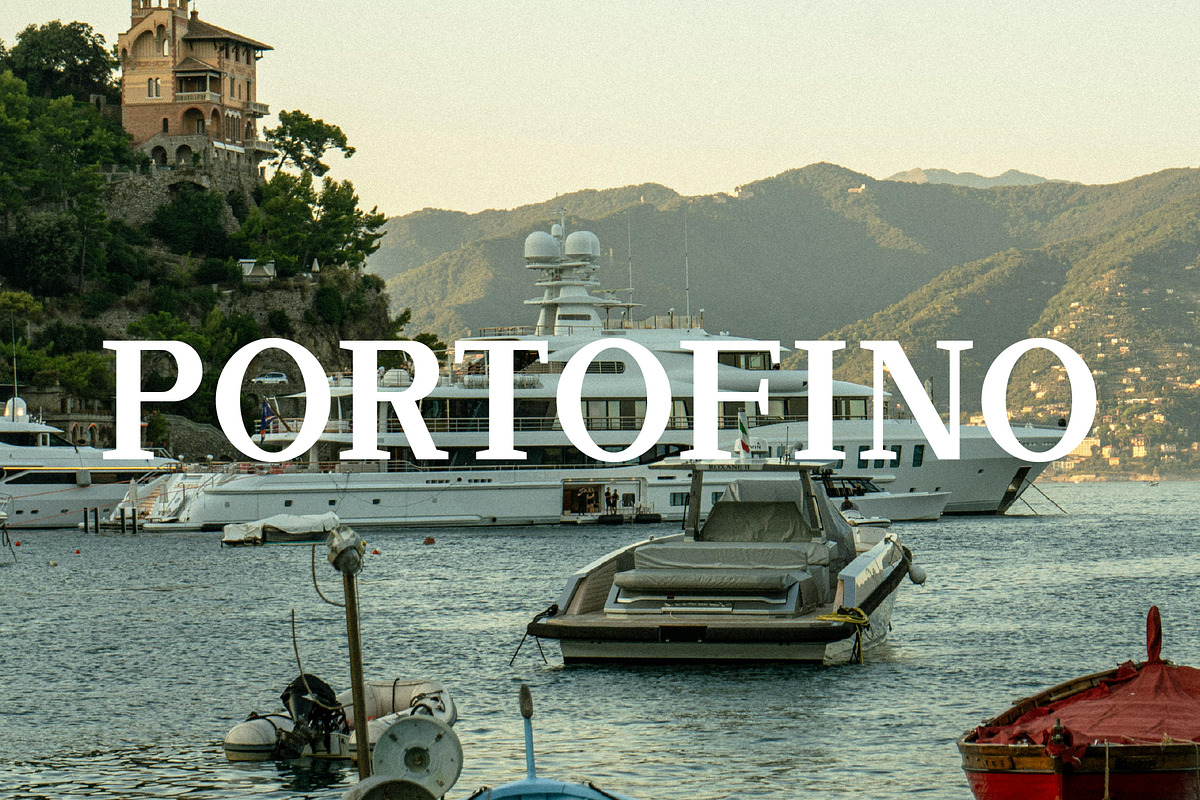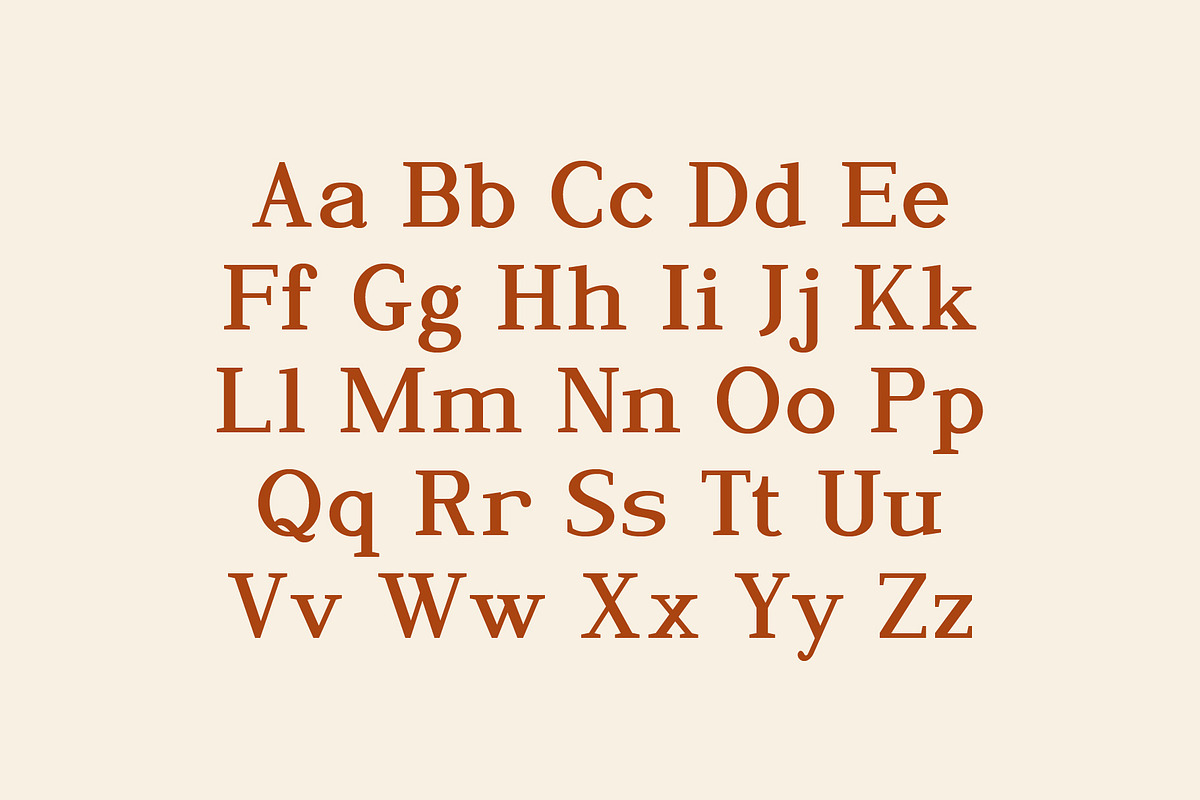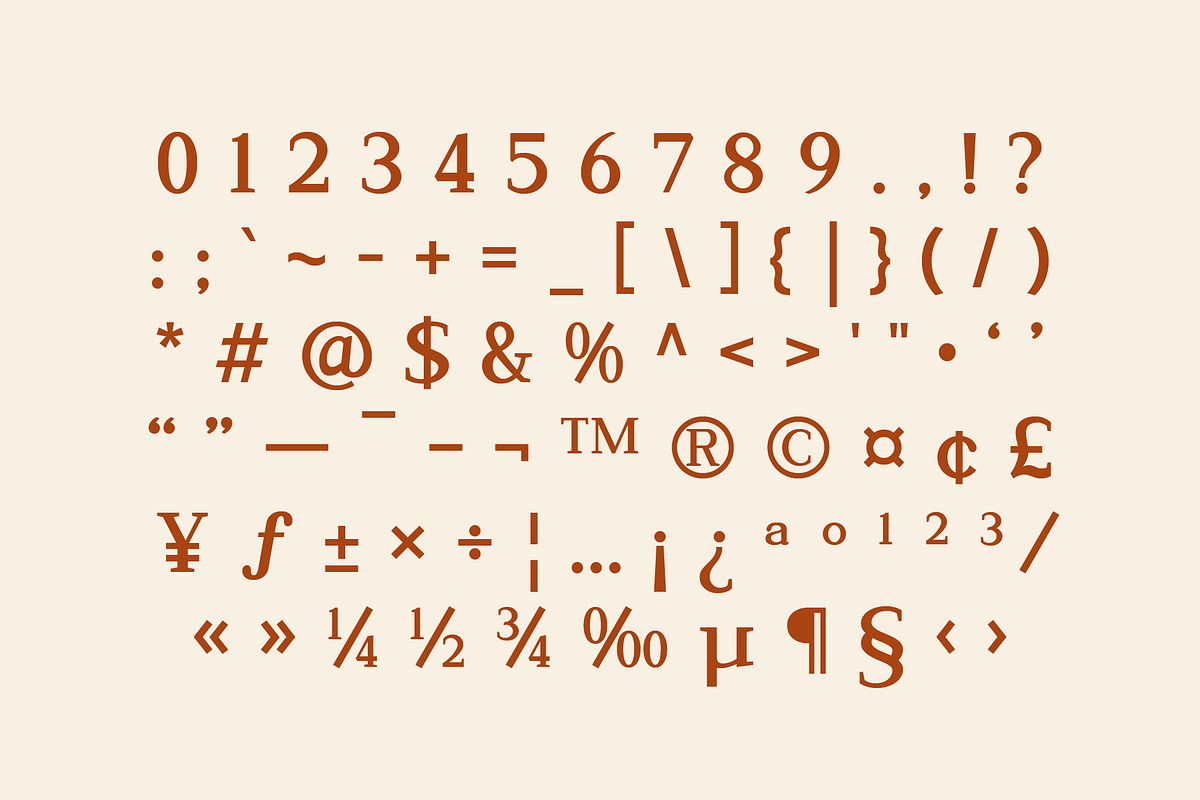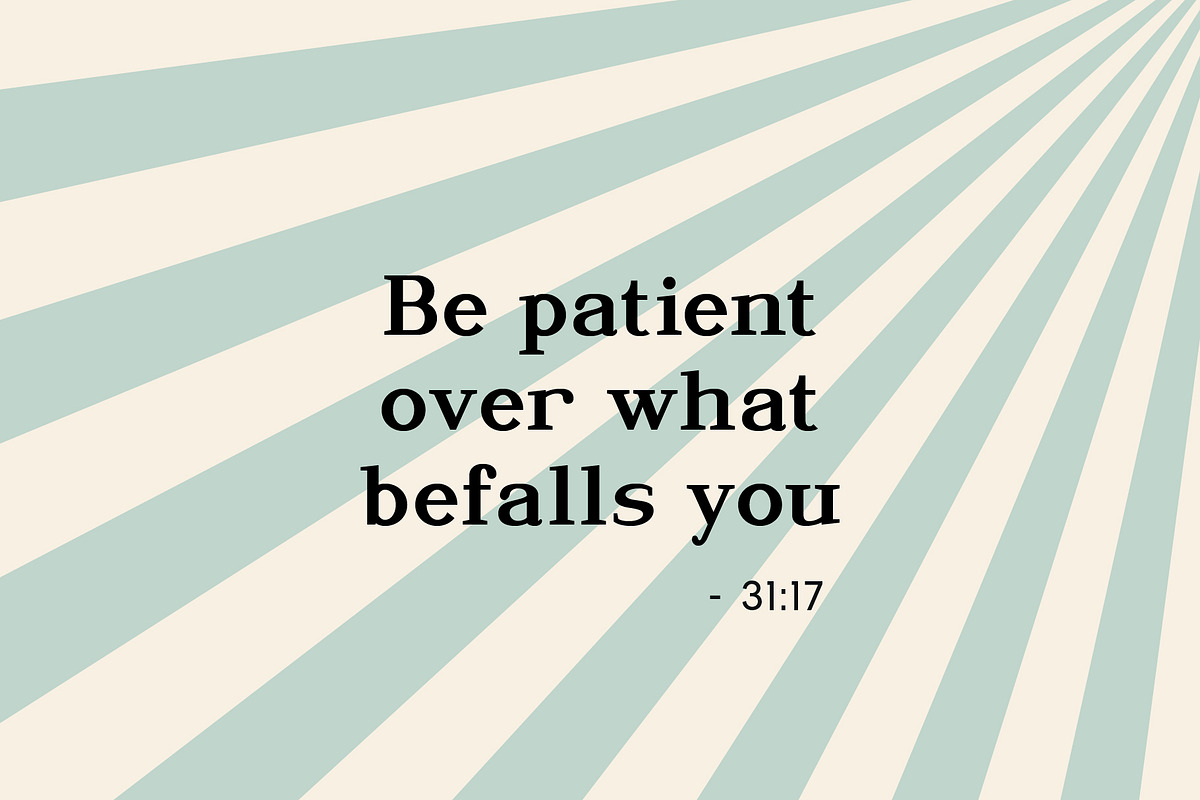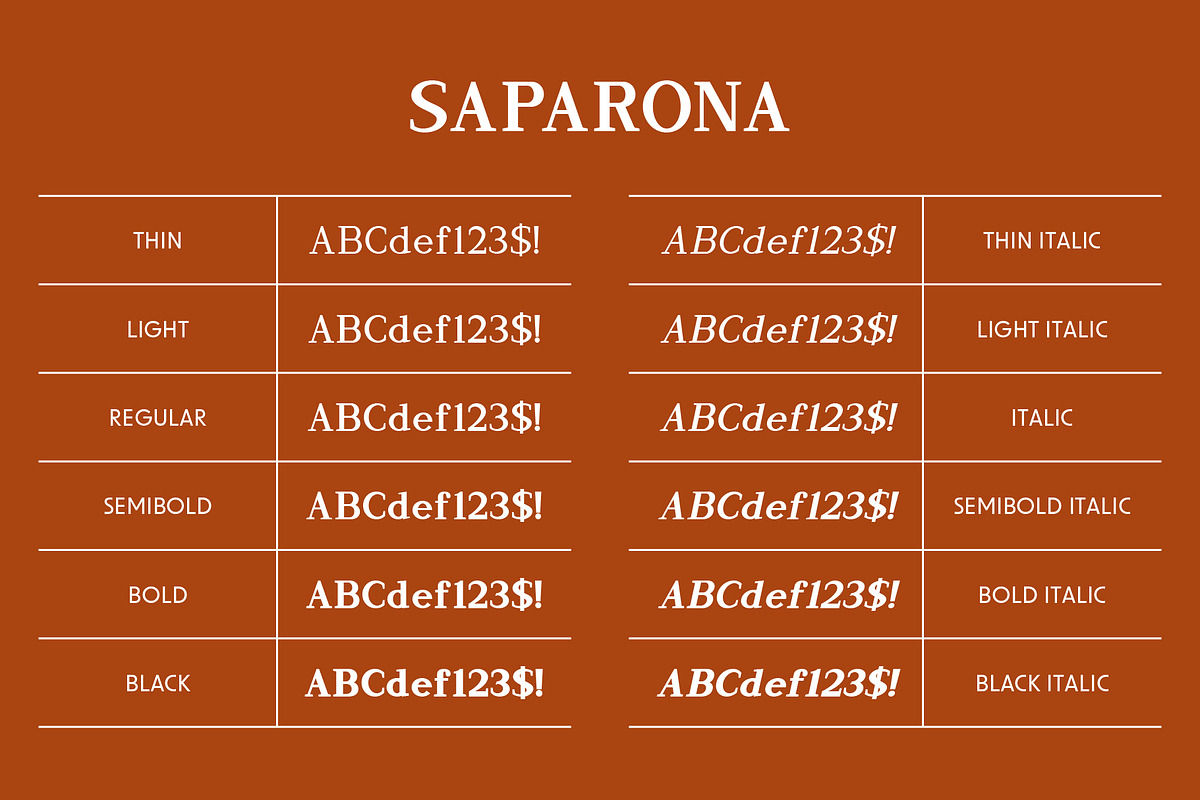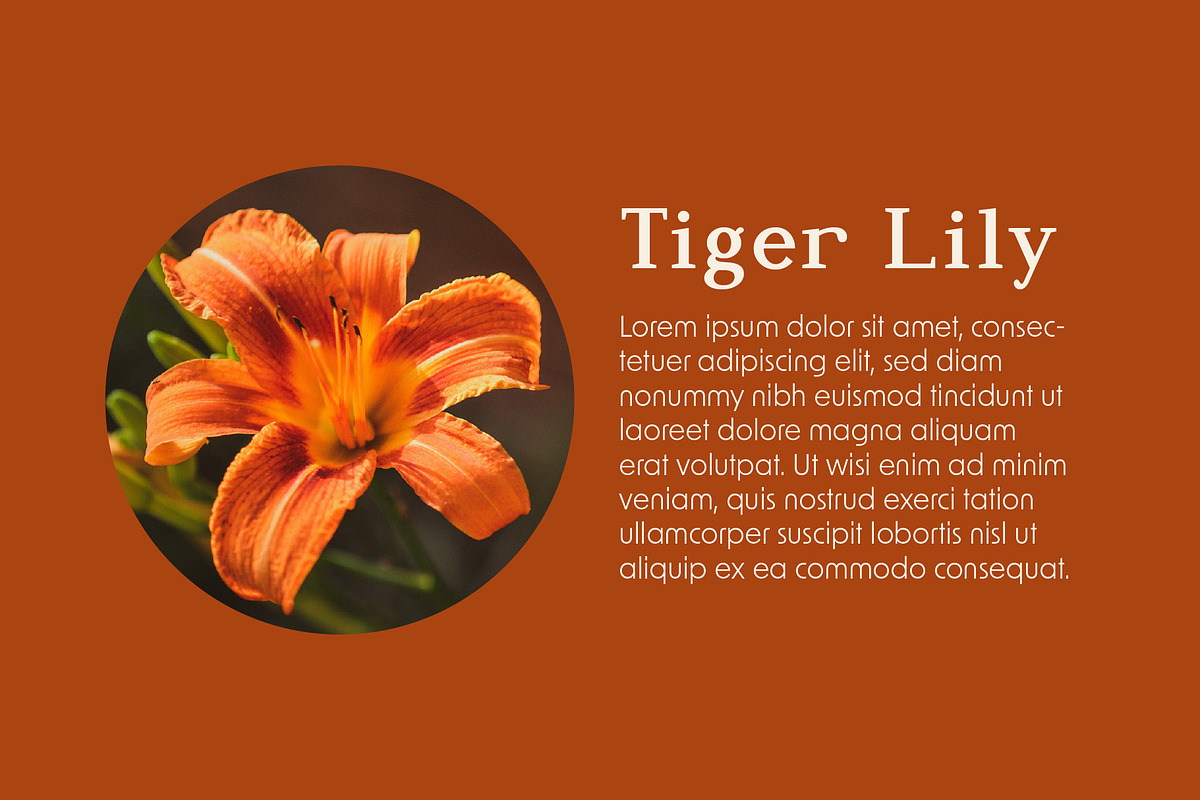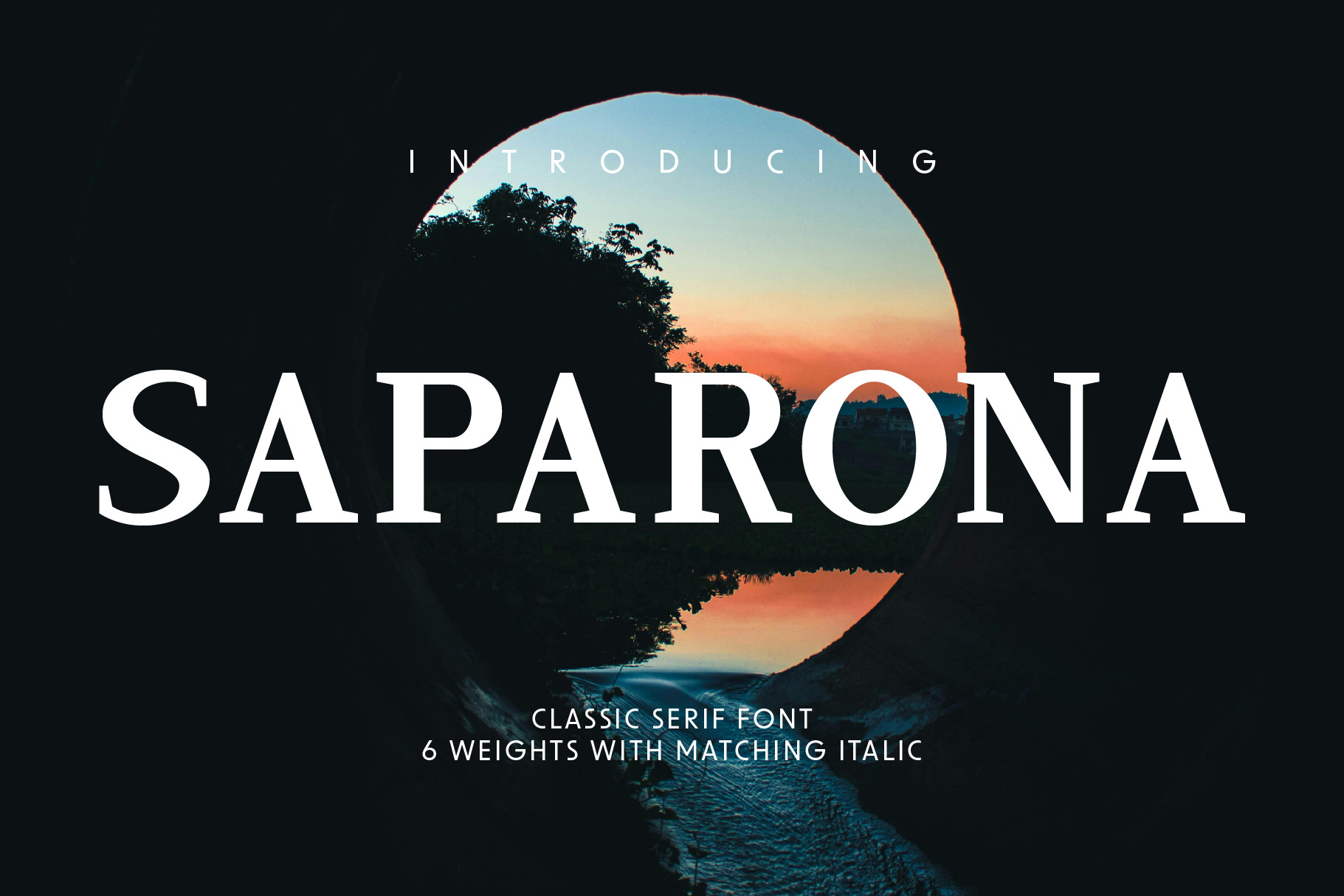
Saparona - Classic Serif Font
Saparona Serif Font is a very perfect choice for your logos, headlines, and body text alike. With clean line and strong characters, you can easily create a cohesive look for your brand or project. Plus, its simplicity makes it easy to read and comprehend, so you can be sure your message is getting across loud and clear.
Saparona Font comes with 6 weights and includes with matching italic
- Thin
- Thin Italic
- Light
- Light Italic
- Italic
- Semi Bold
- Semi Bold Italic
- Bold
- Bold Italic
- Black
- Black Italic